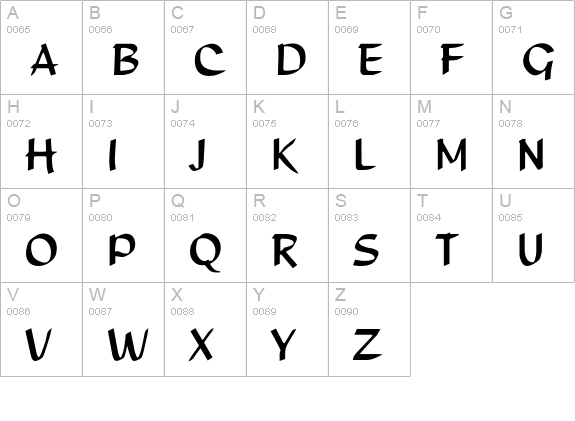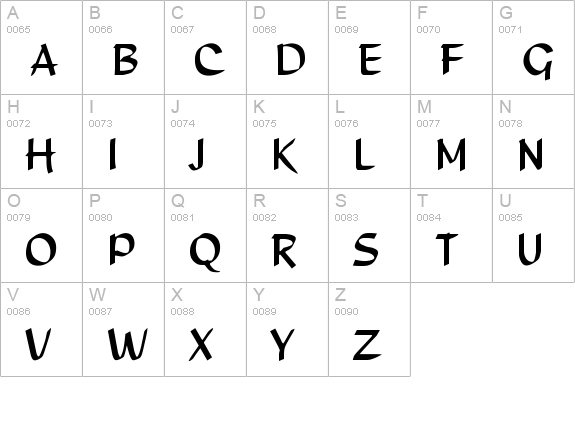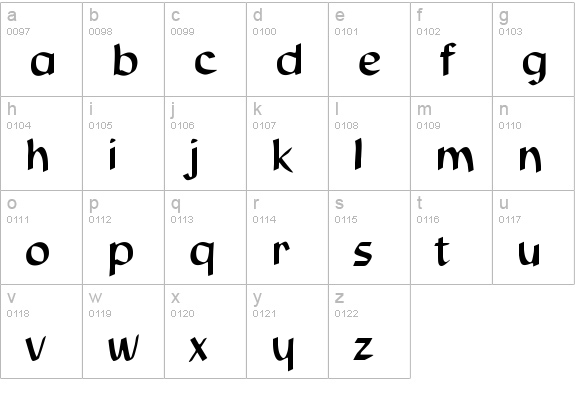
StudioBold Font Details
StudioBold font is a modern and stylish typeface that exudes confidence and creativity. Its bold and eye-catching design makes it perfect for headings, titles, and other design projects that require a strong visual impact. The clean lines and sharp edges of StudioBold font give it a contemporary feel that will elevate any design project. What makes StudioBold font even more appealing is that it is available for free. You can easily download this versatile typeface at FontsMarket.com and use it in your personal and commercial projects without any cost. Whether you are working on a branding project, poster design, or website layout, StudioBold font is sure to make a statement and leave a lasting impression. Don't miss out on this opportunity to enhance your designs with the bold and striking StudioBold font, available for free at FontsMarket.com.